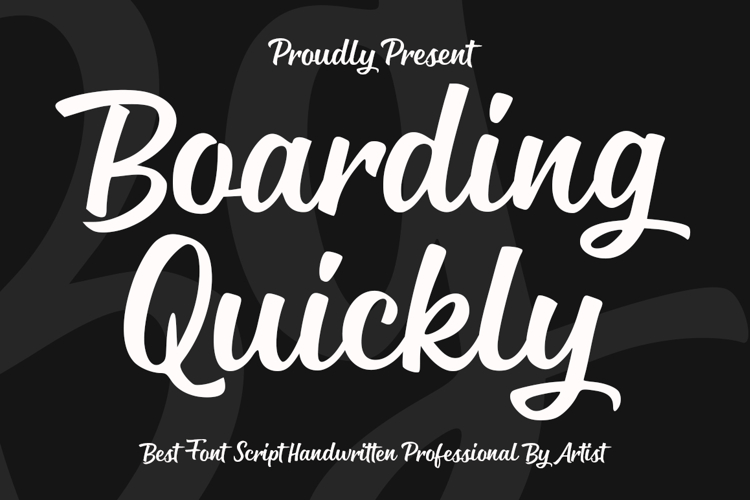
Boarding Quickly
Introducing Boarding Quickly, a bold and expressive logo font designed to make a powerful visual statement. With its thick strokes, confident curves, and dynamic character shapes, this font delivers a strong presence that instantly captures attention.
Crafted to bring energy and personality into every design, Boarding Quickly blends modern style with a playful bold structure, making it perfect for eye-catching branding and standout typography. Each letter is carefully designed to maintain readability while still delivering a unique and memorable look.
This font works beautifully for a wide range of creative projects, including:
• Logos and brand identities
• Packaging design
• Posters and headlines
• Merchandise and apparel
• Social media graphics
• Modern advertising layouts
With its bold personality and striking visual impact, Boarding Quickly helps your designs stand out with confidence, creativity, and style. Perfect for designers who want typography that feels strong, modern, and full of character.